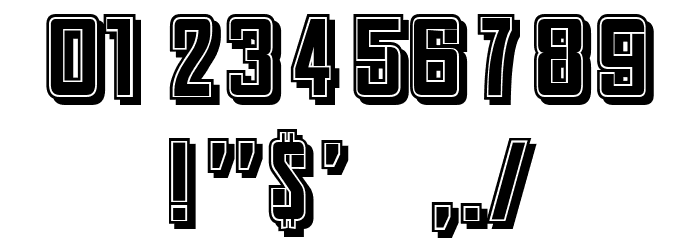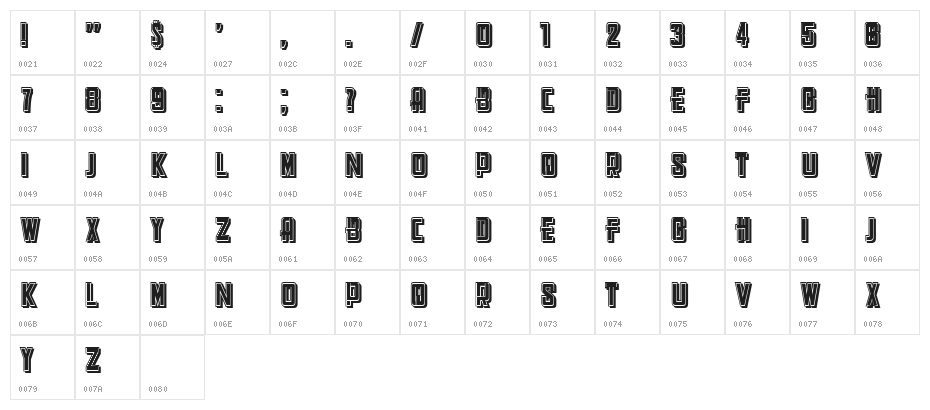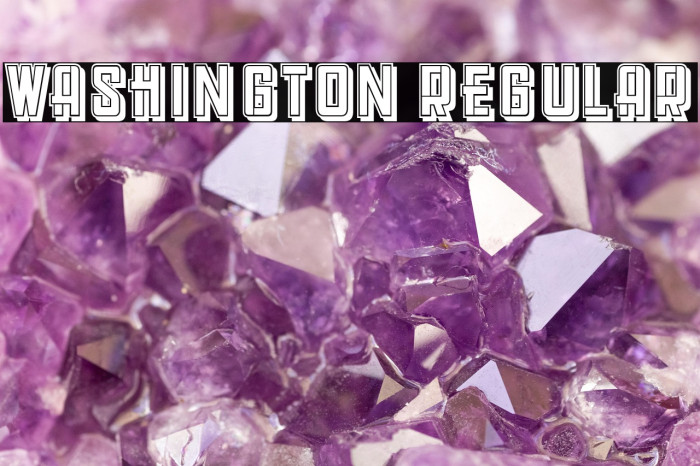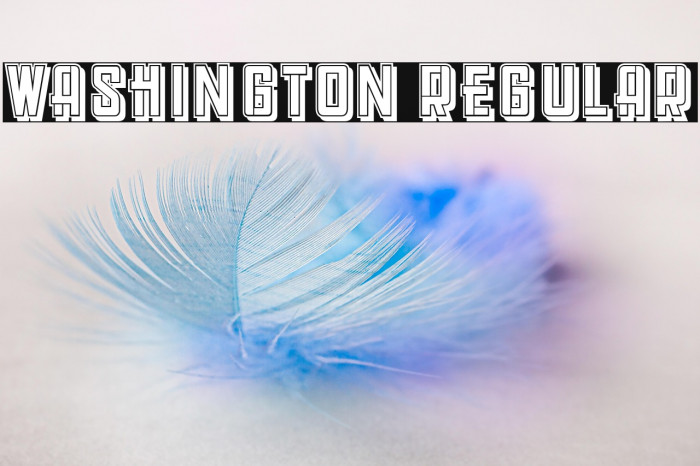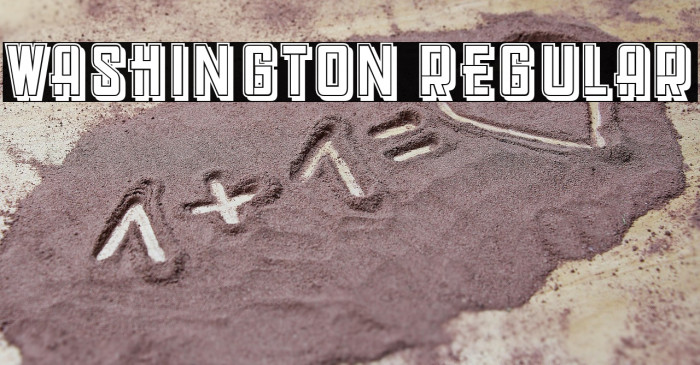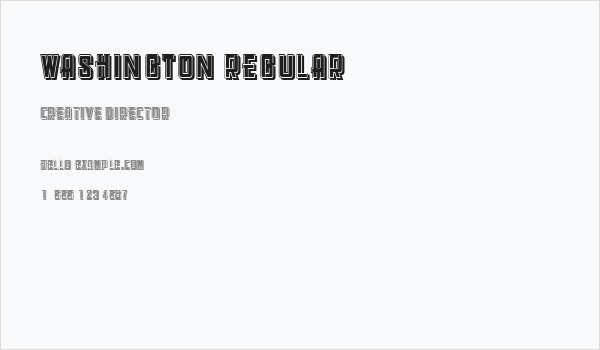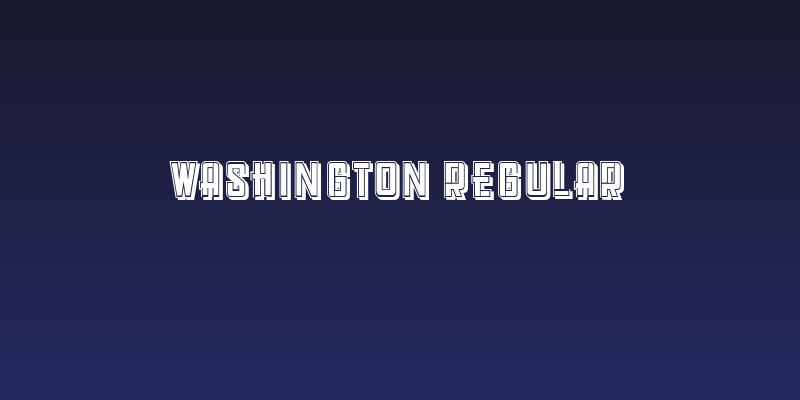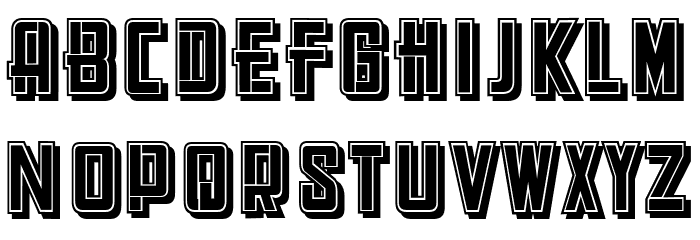
Washington Regular Font
Washington Regular Description
This font features a bold, geometric design with a strong, impactful presence. The characters are outlined with a thick border, giving them a three-dimensional effect. The uppercase letters are uniform in height, while the numerals and special characters maintain the same bold style. The font's design is reminiscent of sports or varsity themes, with a modern twist. Its structured appearance makes it suitable for attention-grabbing headlines and titles. The spacing between characters is tight, enhancing its bold and cohesive look.
| Proposed Projects | Perfect for sports team logos, event posters, or any project needing a strong, bold typeface. |